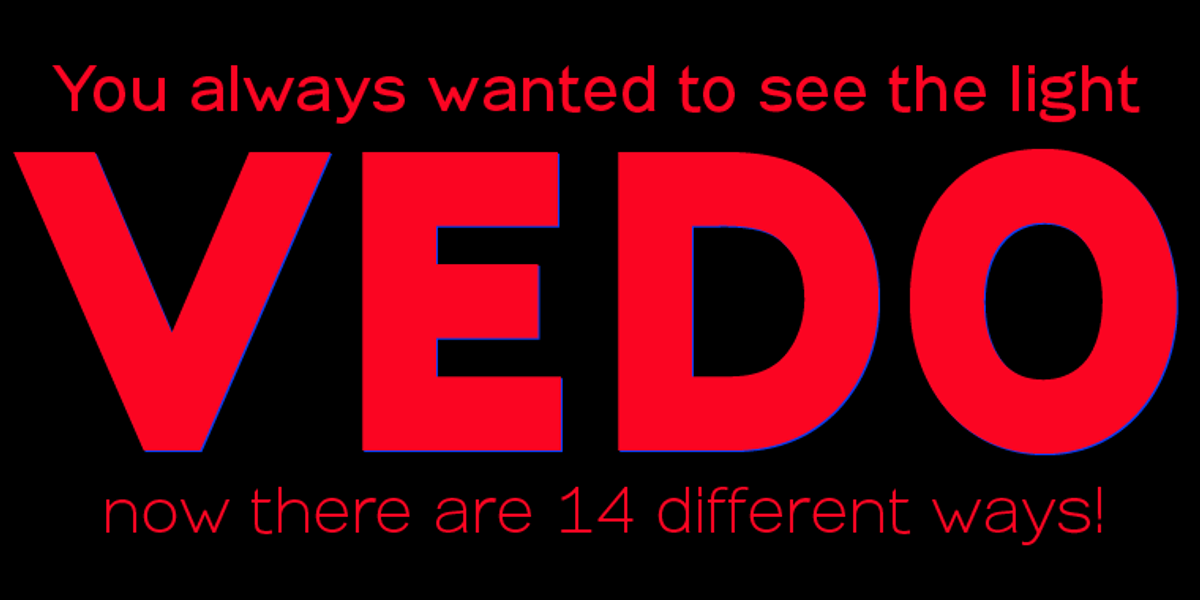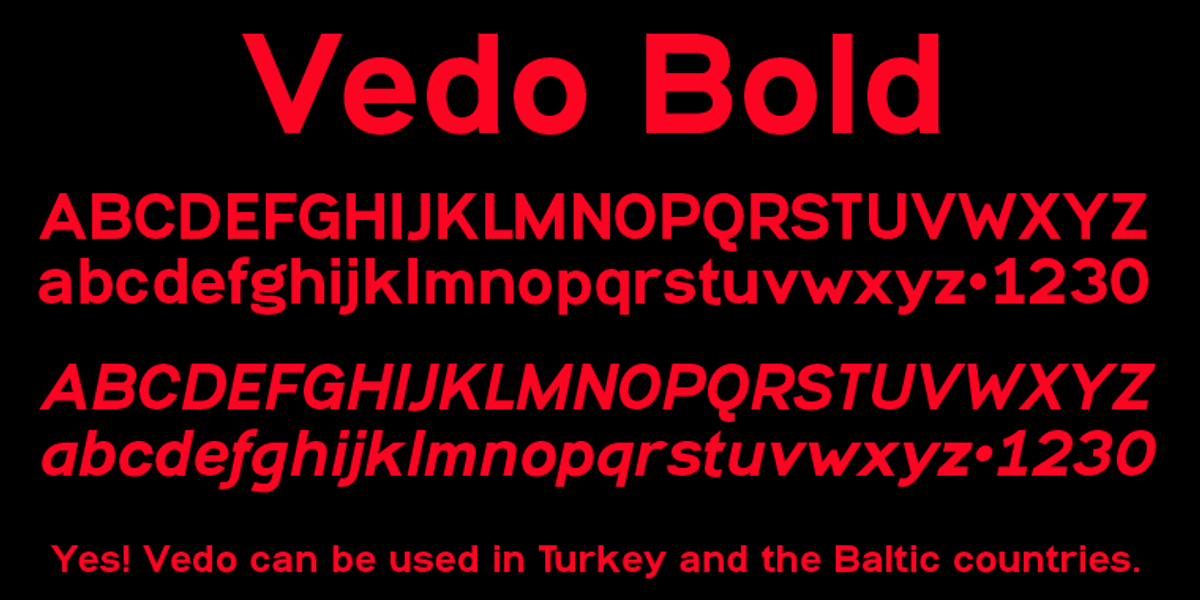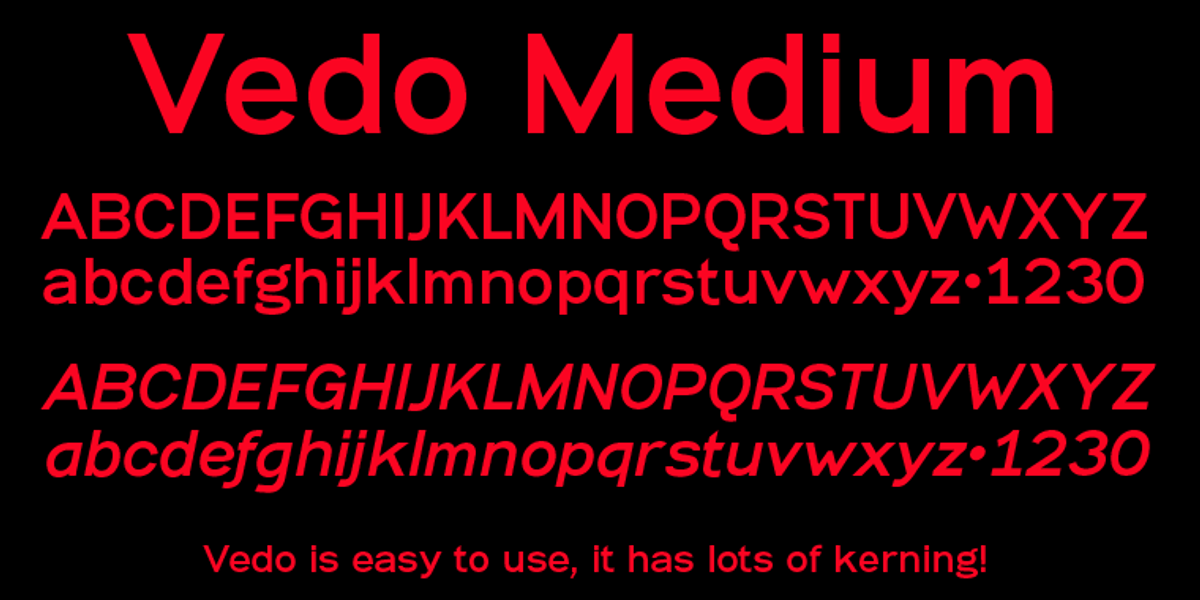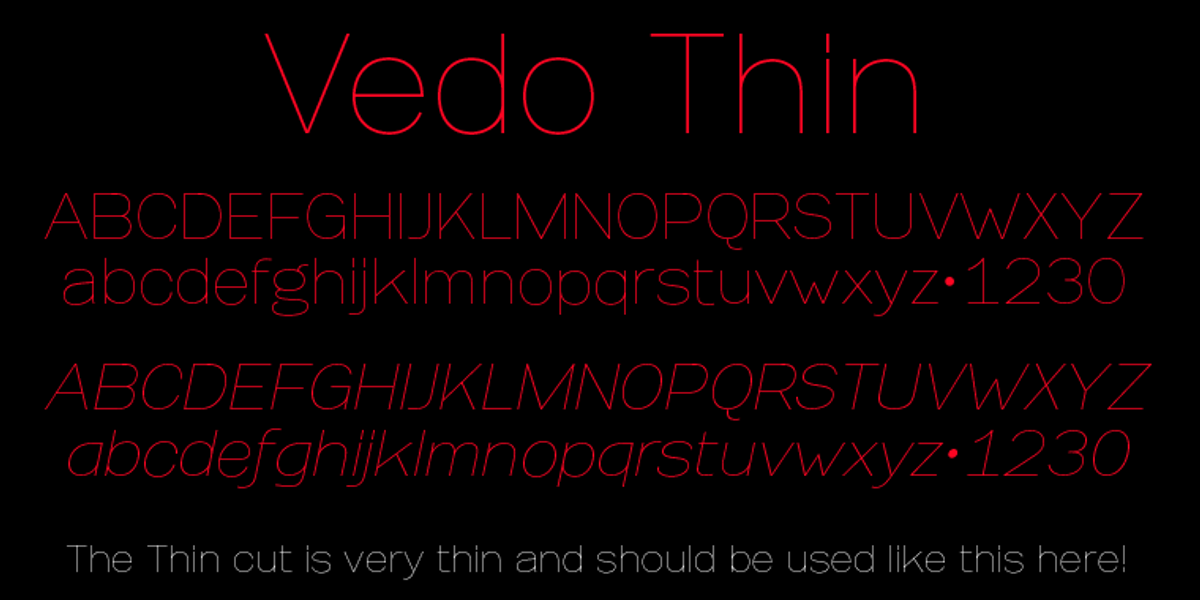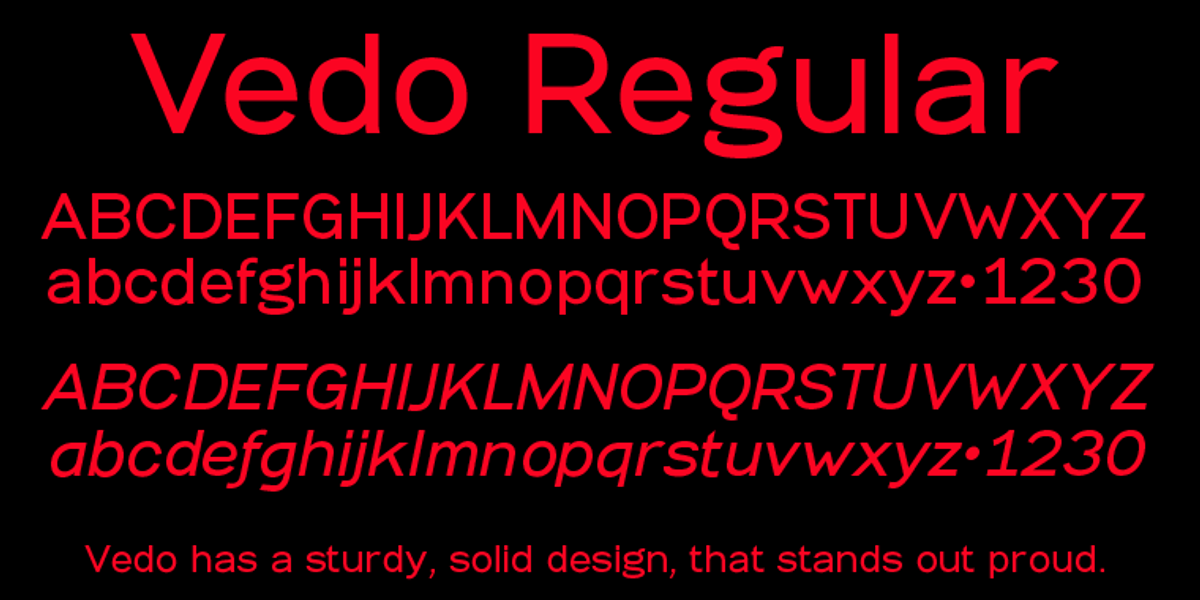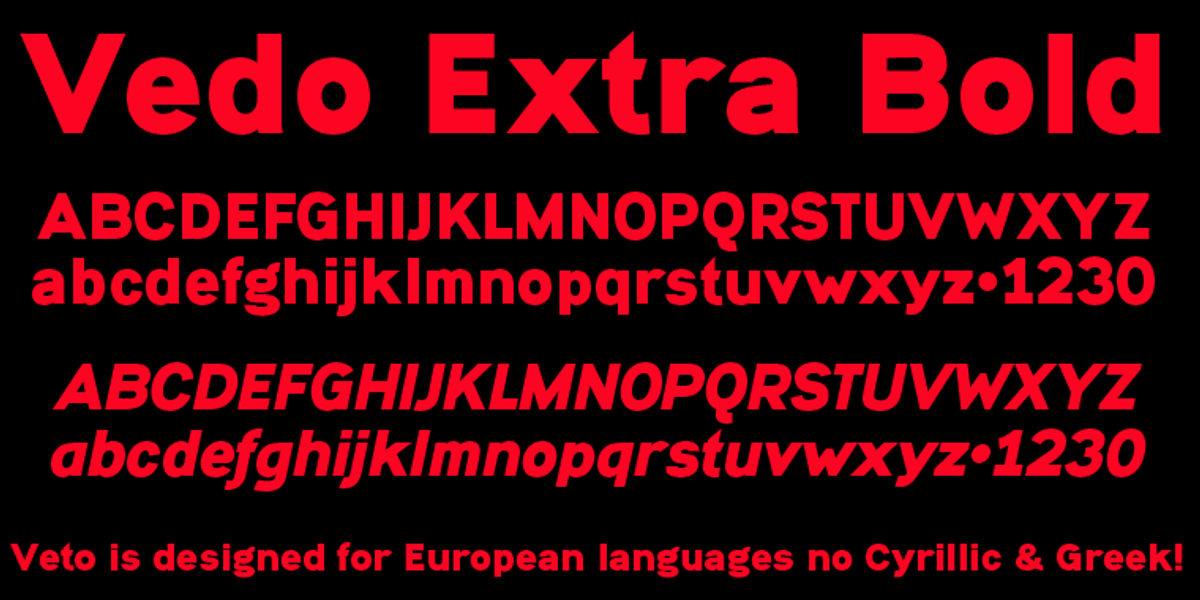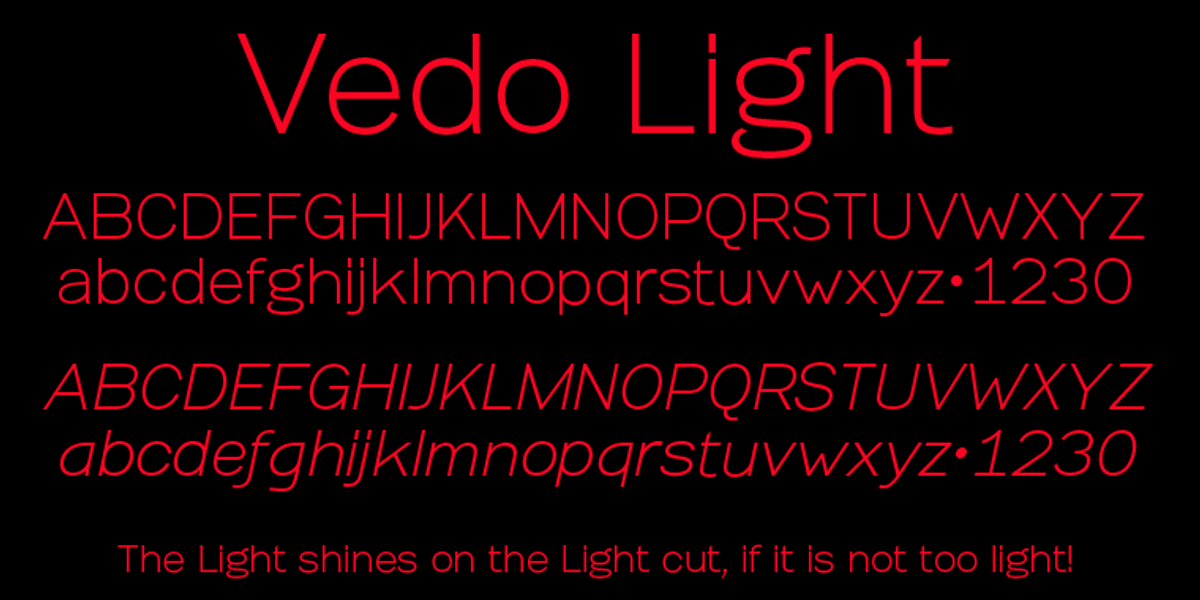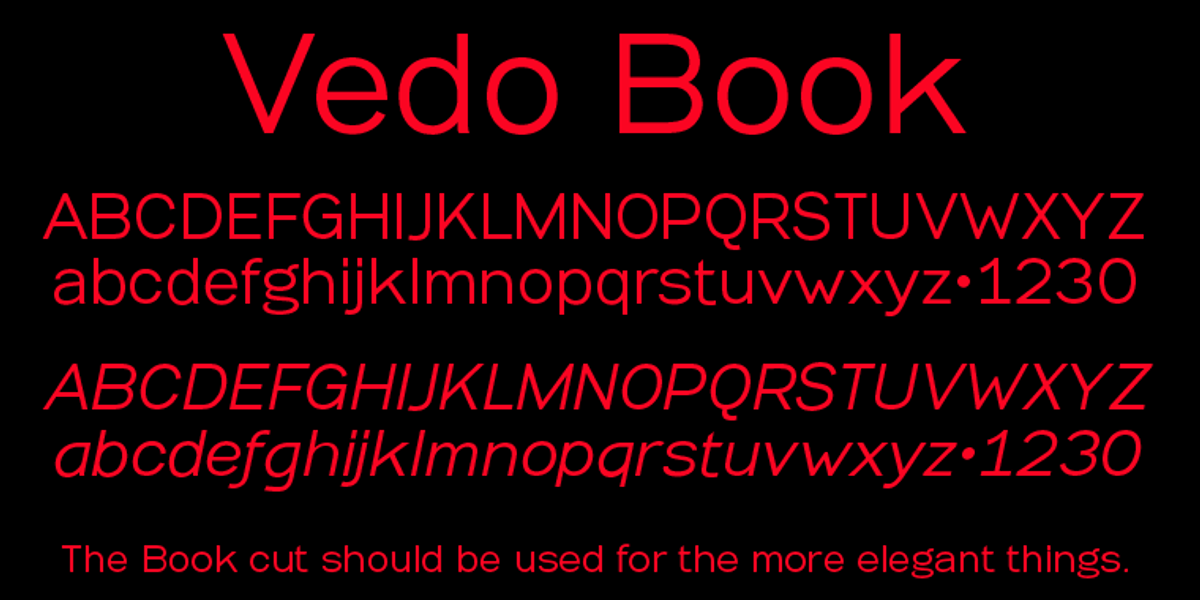
Vedo
Vedo is a modern sans-serif typeface designed in the Bauhaus tradition. It features seven weights and matching italics, making it versatile for various text settings. The 'Thin' weights are available for free. Its monoline construction gives it a clean and contemporary look.